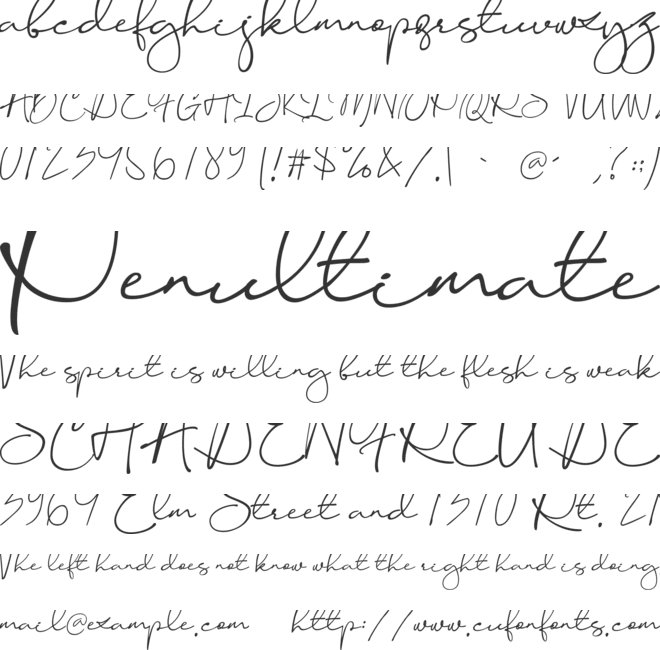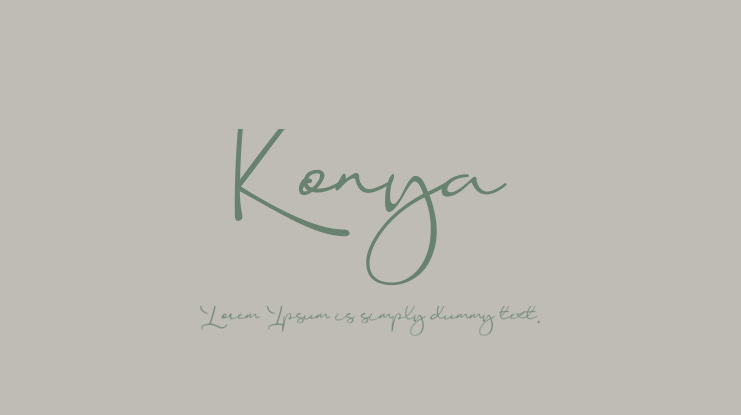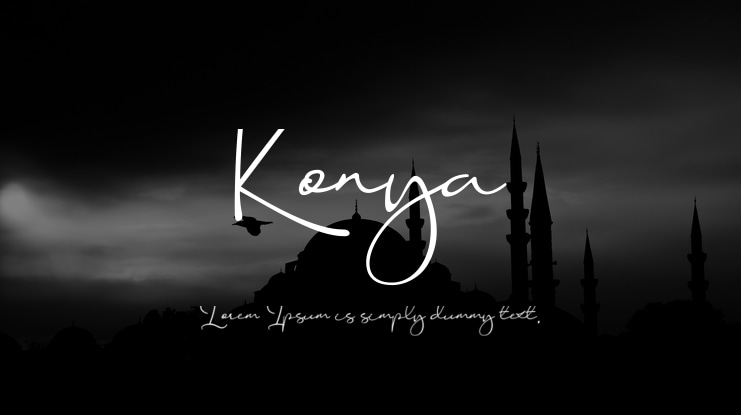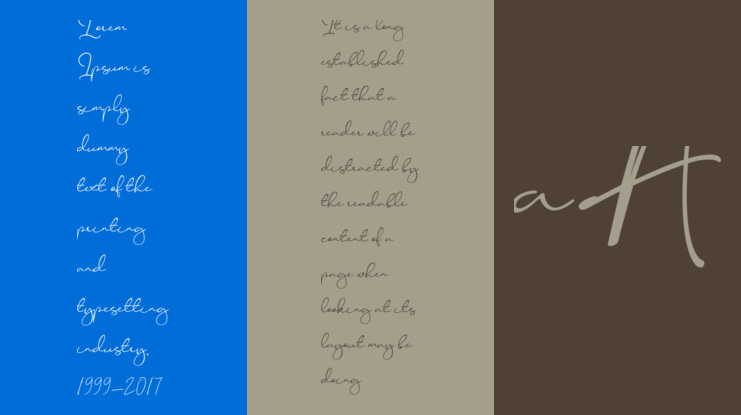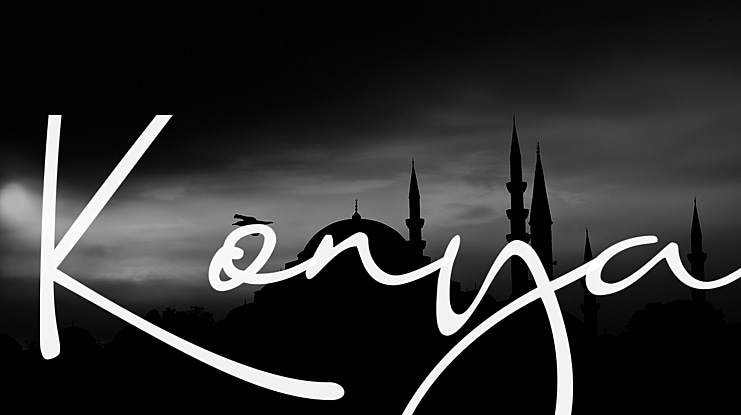
Konya Font
Konya is a signature script-style font with a very luxurious look. It can look very soft and very firm in an elegant frame, high but not too towering, and flat but not too low. Its appearing with a balance like dervish whirling around in ‘Konya town’ with two hands stretched, one hand facing to the sky and the other hand facing to the earth.
This font is perfect for branding, as we equipped it with a number of alternatives that allow you to make it a feminine and masculine logo, and some swash to add to the firmness of signature.
This font also has ligatures to present a natural handwritten impression